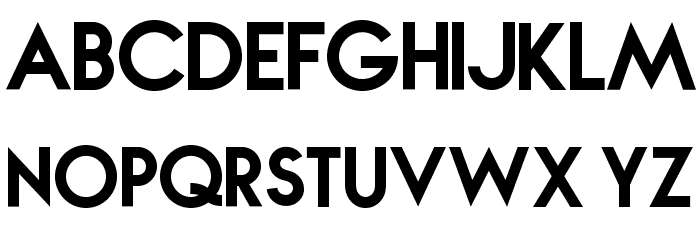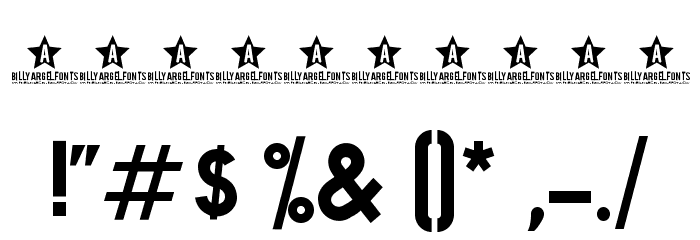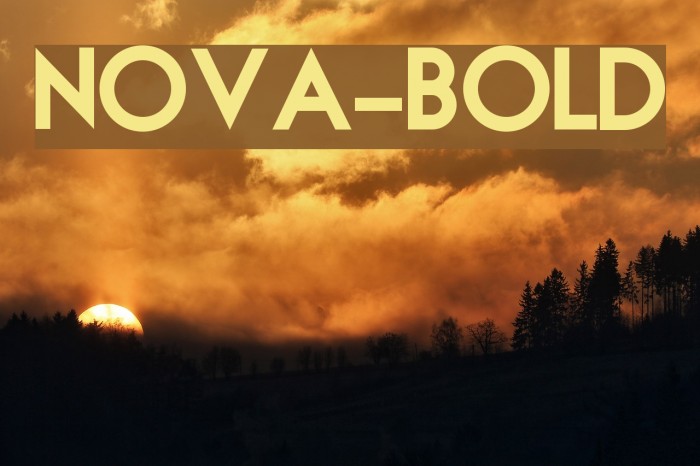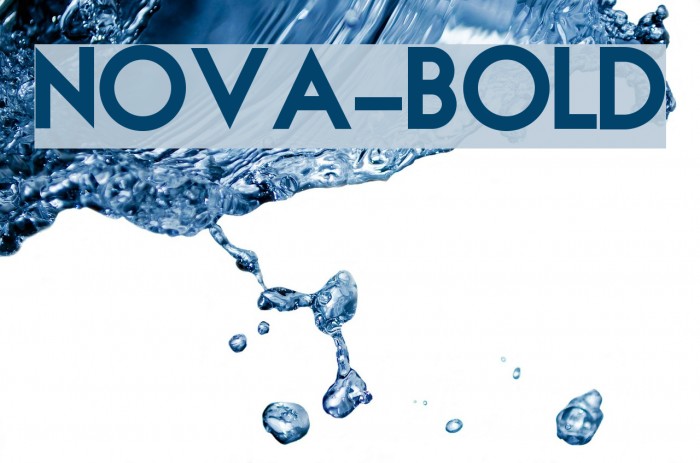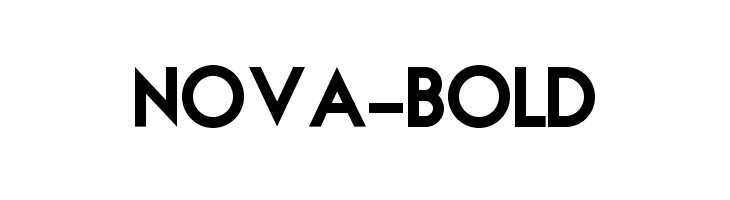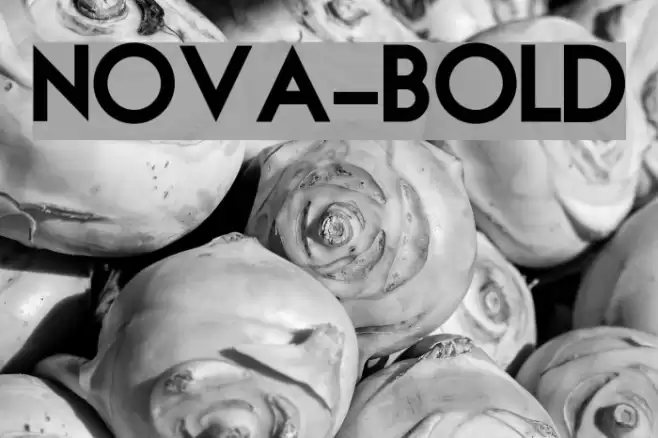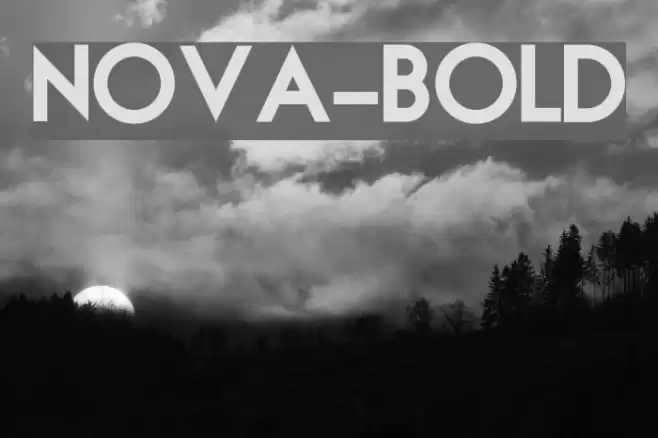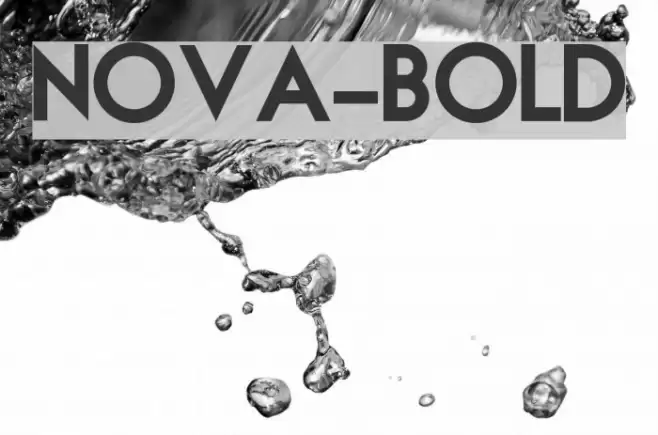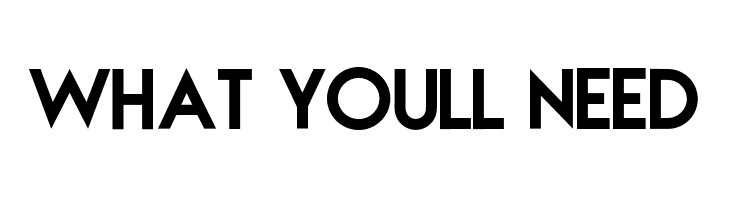
NOVA-BOLD Font
This font features a bold, geometric sans-serif style with clean lines and a modern aesthetic. The uppercase letters are uniform in height, creating a cohesive and structured appearance. The lowercase letters maintain a similar geometric form, ensuring readability and consistency. The numerals are straightforward and align well with the overall design, while the special characters are crafted to match the boldness and clarity of the alphabet. This font's strong presence makes it suitable for impactful designs.
A bold, geometric sans-serif font with a modern and clean design.
- Proposed Projects: Ideal for branding, headlines, posters, and any design requiring a strong visual impact.